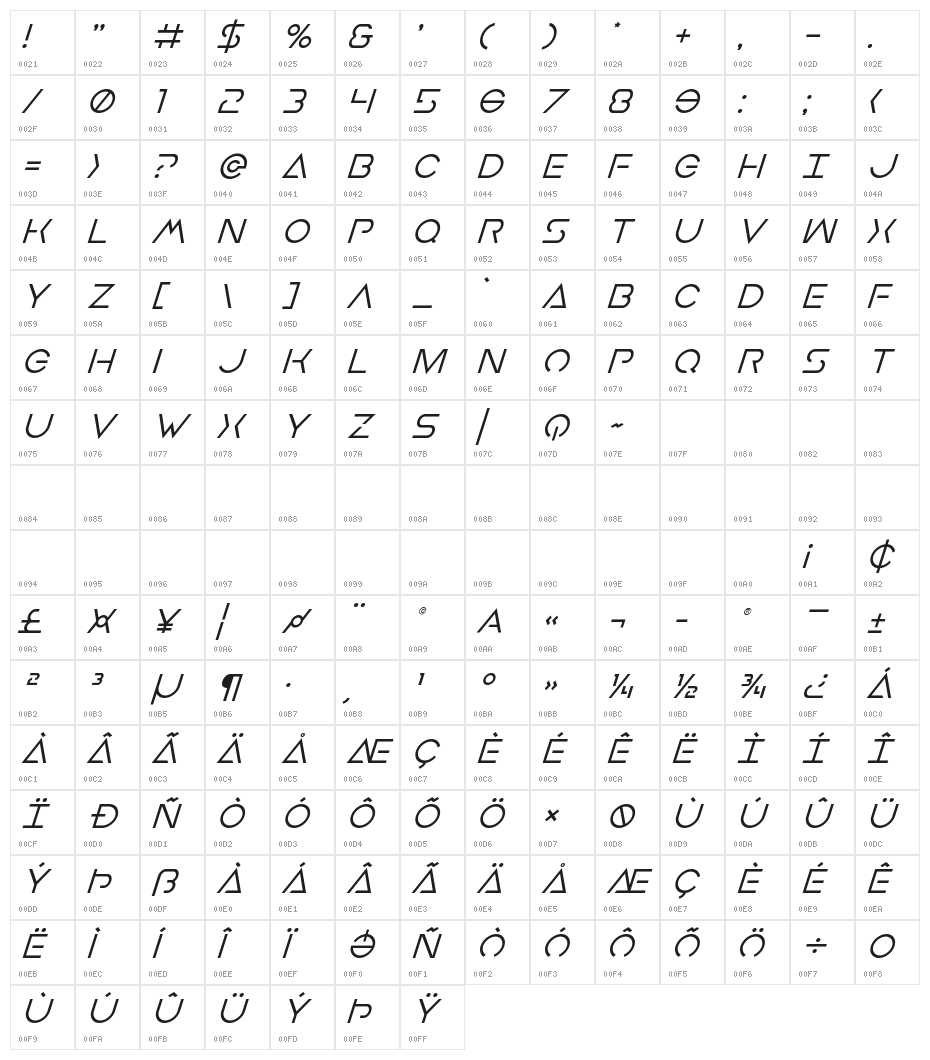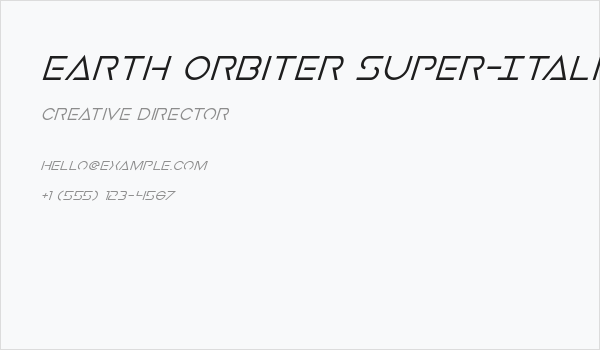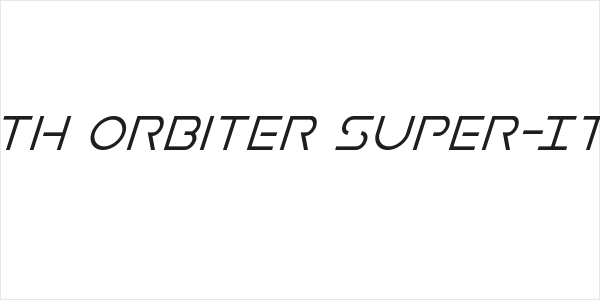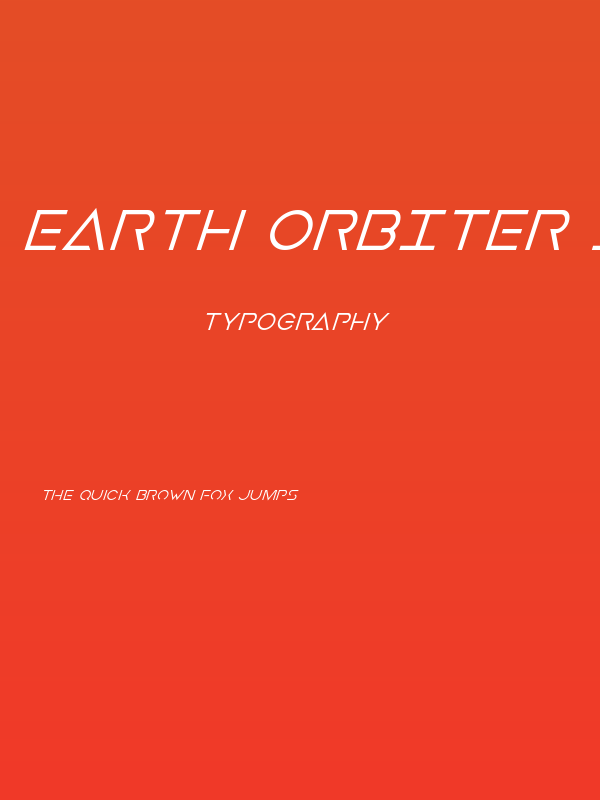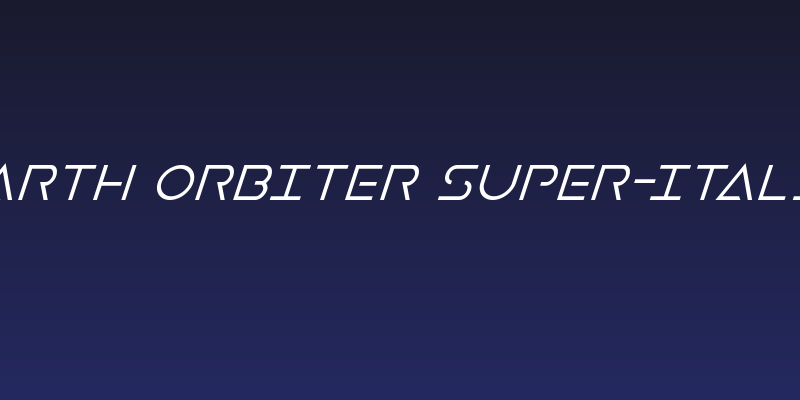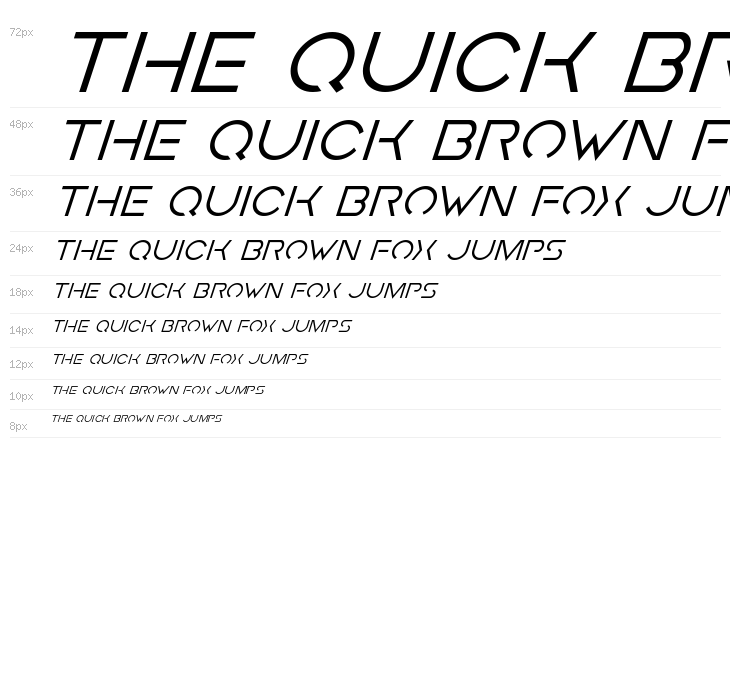
Earth Orbiter Super-Italic Font
Earth Orbiter Super-Italic Description
This font features a sleek, futuristic design with a distinct italic slant, giving it a dynamic and forward-moving appearance. The characters are crafted with clean, sharp lines and geometric shapes, creating a sense of precision and modernity. The uppercase letters are bold and commanding, while the lowercase letters maintain a consistent style, ensuring readability. The numerals are uniquely styled, with angular cuts and curves that complement the overall aesthetic. Special characters are designed to match the font's modern theme, making it versatile for various applications. The font's design is well-suited for projects that require a contemporary and innovative look.
| Proposed Projects | Ideal for technology branding, sci-fi movie posters, modern website headers, and innovative product packaging. |